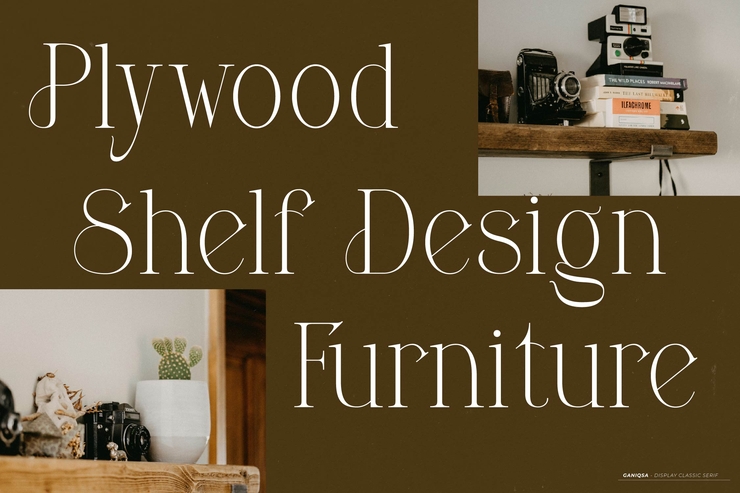
Ganiqsa Elegant Stylish Modern Decorative English Font
Ganiqsa is a unique and sophisticated decorative English font crafted with smooth strokes, well‑balanced curves and delicate glyph details. Its elegant and modern design delivers a premium artistic style that stands out in various visual creations. This versatile typeface is perfect for brand logos, fashion posters, web headlines, e‑commerce banners, product packaging, social media graphics and UI decorative text. Complete with full uppercase and lowercase letters, it is highly scalable and easy to adjust colors, sizes and layouts without losing fine details. Suitable for graphic designers, creative studios and commercial branding projects to add exclusive high‑end charm to all kinds of design works.Free for Commercial Use / No Copyright